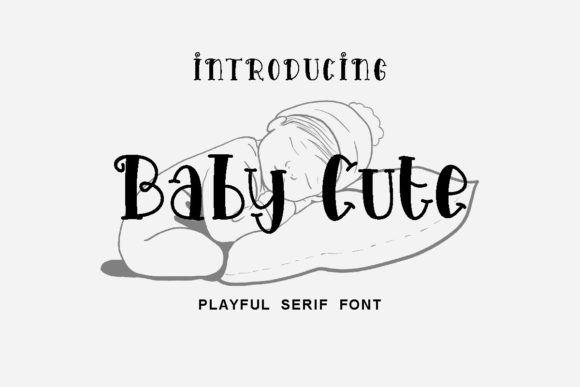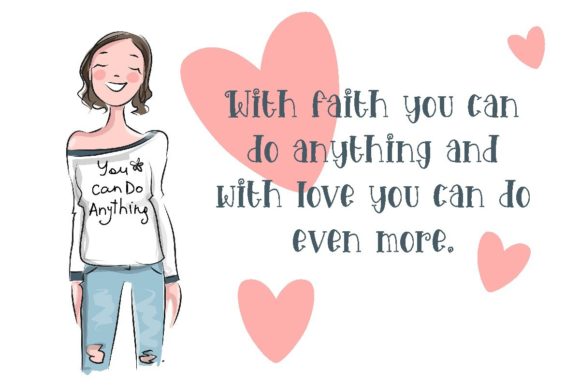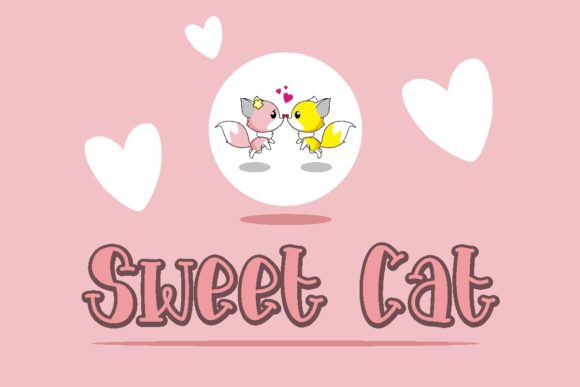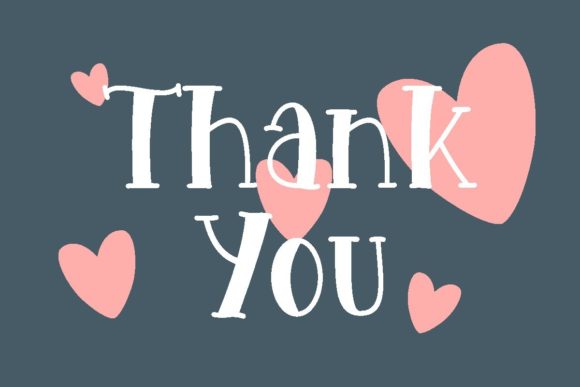
Baby Cute Font: The Ultimate Display Font for Creative Projects
Baby Cute Font is a fun and cool display font that has taken the design world by storm. Its playful and charming style makes it perfect for a wide range of creative projects, from crafting and DIY tutorials to digital designs and marketing materials. In this article, we’ll dive into the features and benefits of Baby Cute Font, and explore how it can elevate your designs and make them stand out.
What is Baby Cute Font?
Baby Cute Font is a display font designed to add a touch of whimsy and fun to your projects. Its unique and quirky style is sure to capture attention and leave a lasting impression. The font is highly versatile and can be used for a variety of purposes, including:
- Crafting and DIY tutorials
- Digital designs, such as social media graphics and blog posts
- Marketing materials, including brochures and flyers
- Wedding and party decorations
- Children’s book titles and illustrations
Key Features of Baby Cute Font
Baby Cute Font comes with a range of features that make it a must-have for designers and crafters. Some of its key features include:
- Unique and playful style: Baby Cute Font has a one-of-a-kind design that is sure to add a touch of personality to your projects.
- Highly versatile: The font can be used for a wide range of projects, from digital designs to print materials.
- Easily readable: Despite its playful style, Baby Cute Font is highly readable, making it perfect for titles, headings, and short paragraphs.
How to Use Baby Cute Font in Your Projects
Using Baby Cute Font in your projects is easy and straightforward. Here are a few tips to get you started:
- Pair it with other fonts: Baby Cute Font can be paired with other fonts to create a unique and visually appealing design. Try pairing it with a clean sans-serif font for a modern look.
- Experiment with colors: The font comes in a range of colors, but you can also experiment with different colors to match your brand or project’s theme.
- Use it for titles and headings: Baby Cute Font is perfect for titles and headings, where its playful style can add a touch of personality to your design.
Benefits of Using Baby Cute Font
Using Baby Cute Font in your projects comes with a range of benefits, including:
- Increased creativity: The font’s playful style can inspire creativity and add a fresh perspective to your designs.
- Improved readability: Despite its playful style, Baby Cute Font is highly readable, making it perfect for titles, headings, and short paragraphs.
- Enhanced visual appeal: The font’s unique design is sure to capture attention and add a touch of personality to your projects.
- Time-saving: With Baby Cute Font, you can create professional-looking designs in no time, saving you time and effort.
| Font Name | Baby Cute Font |
| Author | Pidco.art |
In conclusion, Baby Cute Font is a fun and cool display font that can add a touch of personality to your creative projects. Its unique and playful style makes it perfect for a wide range of applications, from crafting and DIY tutorials to digital designs and marketing materials. With its highly versatile design, ease of use, and range of benefits, Baby Cute Font is a must-have for designers and crafters looking to elevate their designs and make them stand out.